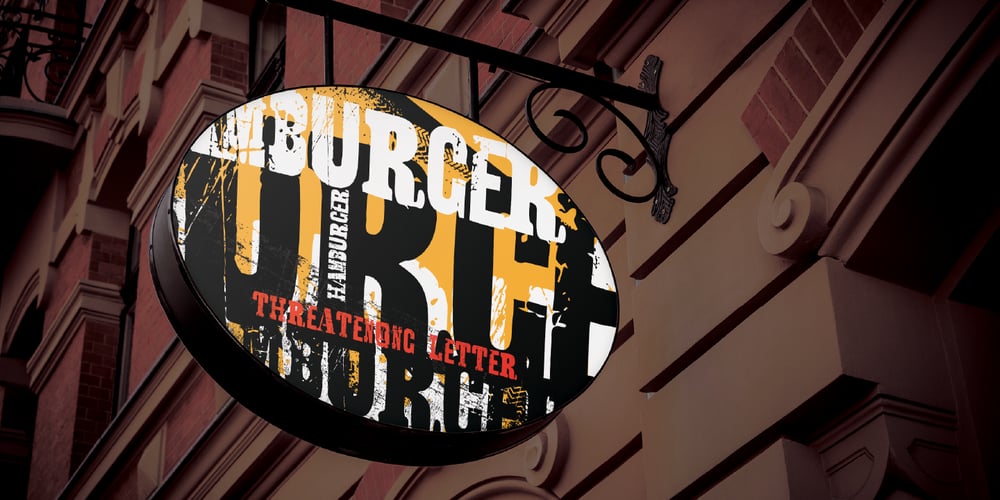
Threatening Letter Font Family was designed by Ksenija Milićević and published by AineX. Threatening Letter contains 1 styles and family package options. Threatening Letter is a decorative font, inspired by vintage looking newspaper letters with grunge effect added to it. It’s meant to resemble a ransom note and it allows the user to play with combinations of uppercase and lowercase to always get different effects and avoid letter repetition. This font can be used for various things such as posters, T-shirts, magazines, book covers and headlines.